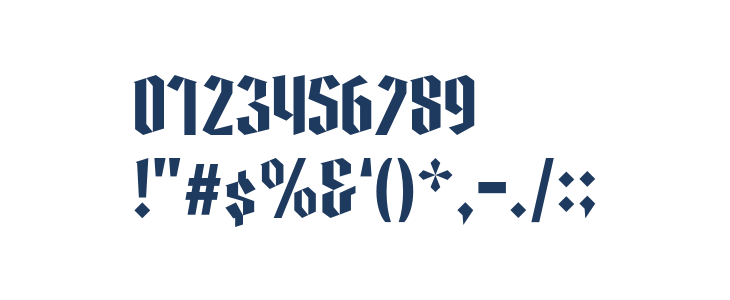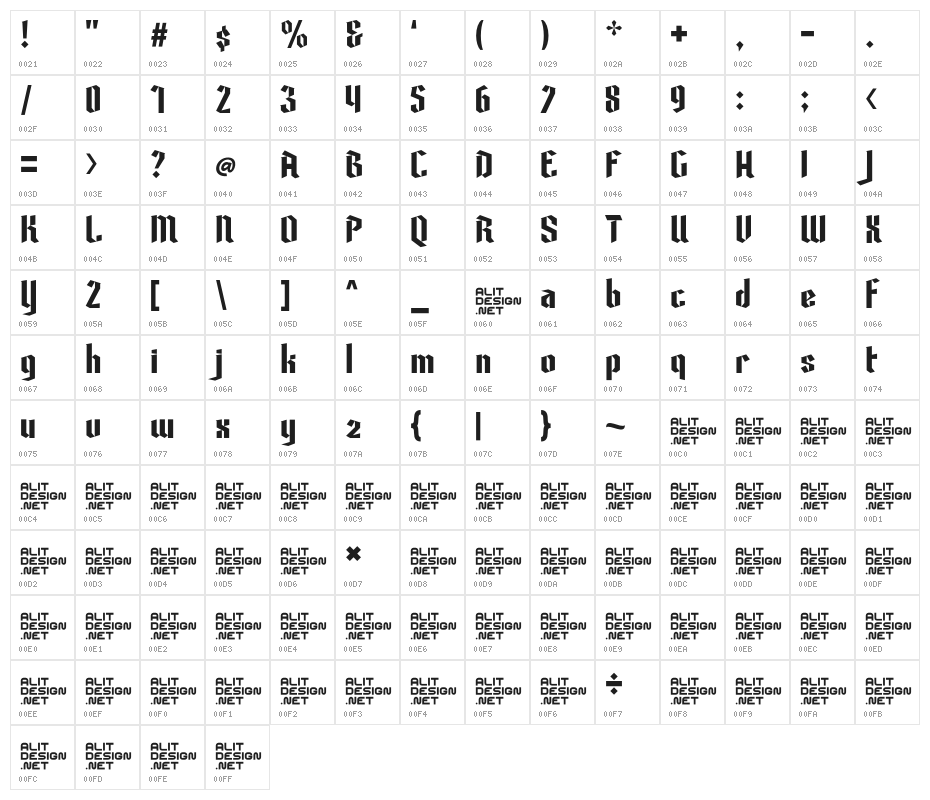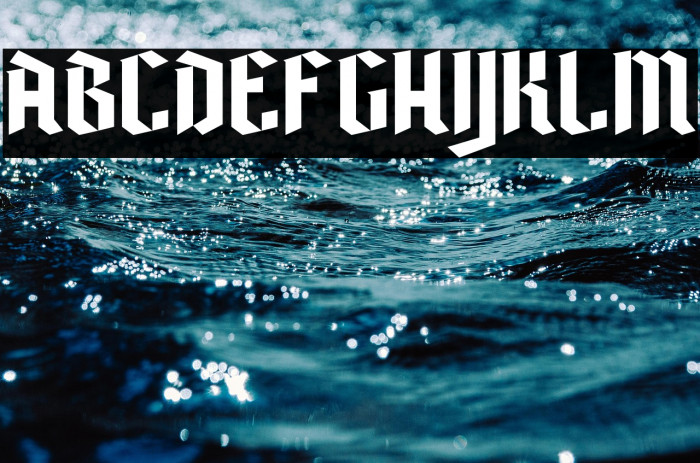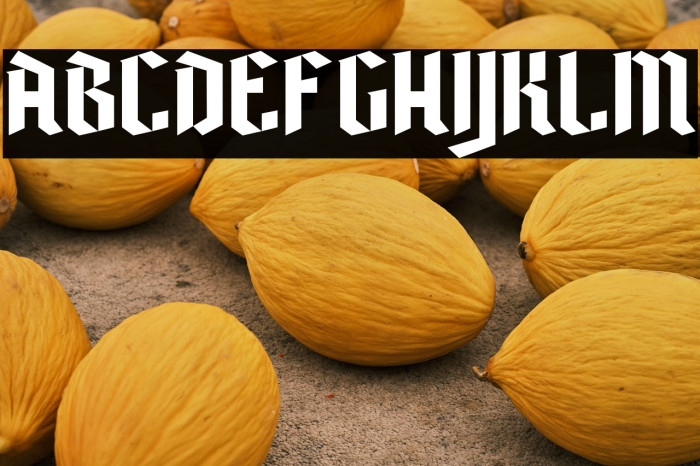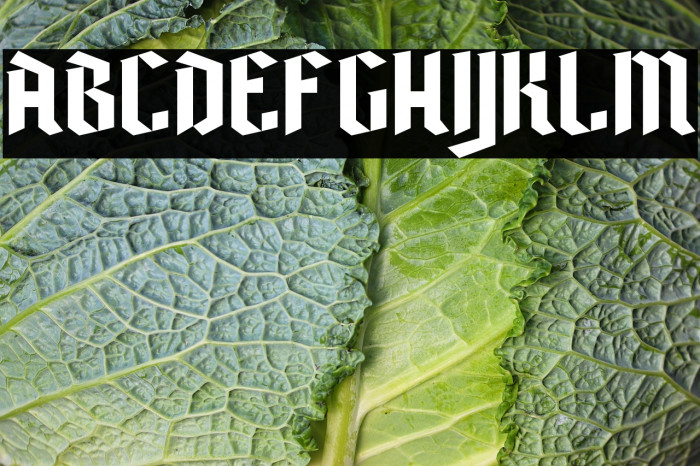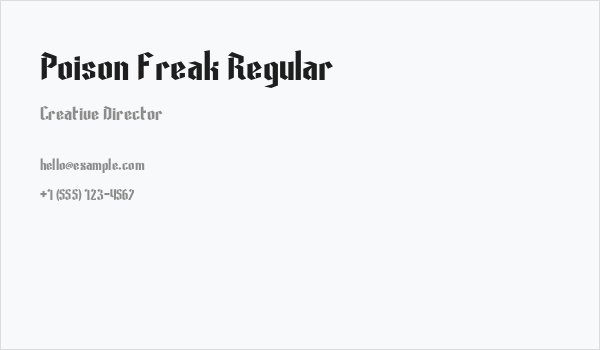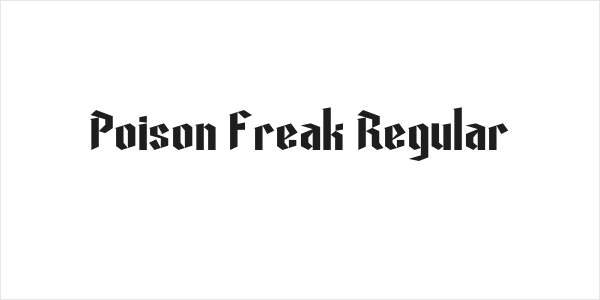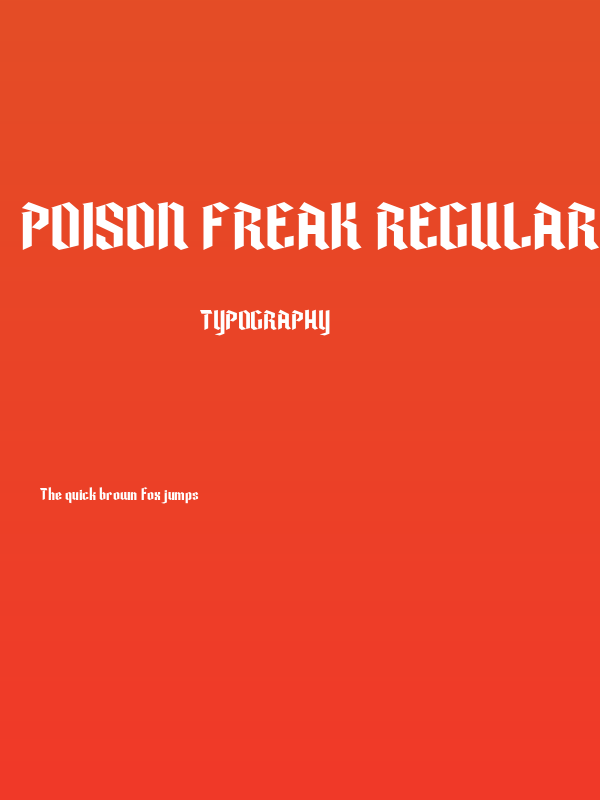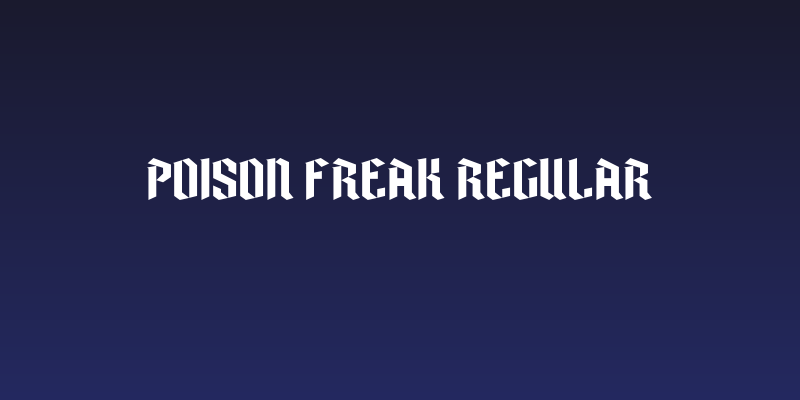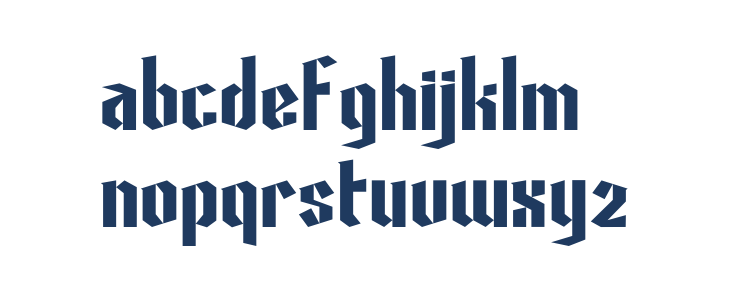
Poison Freak Regular Font
Poison Freak Regular Description
This font features a bold and striking design with sharp, angular edges and a gothic influence. The uppercase and lowercase letters maintain a consistent style, characterized by their thick, block-like forms and pointed serifs. The numbers and special characters follow the same aesthetic, ensuring uniformity across all glyphs. The overall appearance is reminiscent of medieval or blackletter scripts, yet with a modern twist that makes it suitable for contemporary designs. Its unique style commands attention and adds a dramatic flair to any project.
| Proposed Projects | Ideal for projects requiring a dramatic and eye-catching typeface, such as posters, album covers, branding for edgy or alternative products, and themed event invitations. |